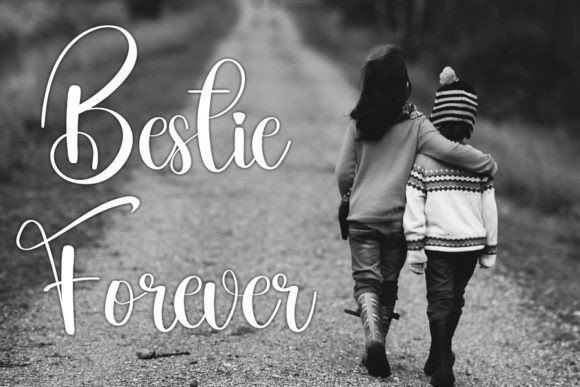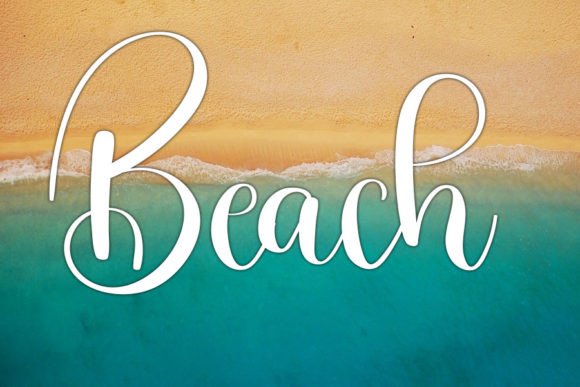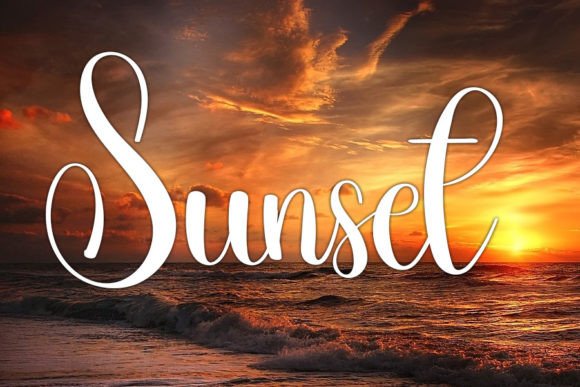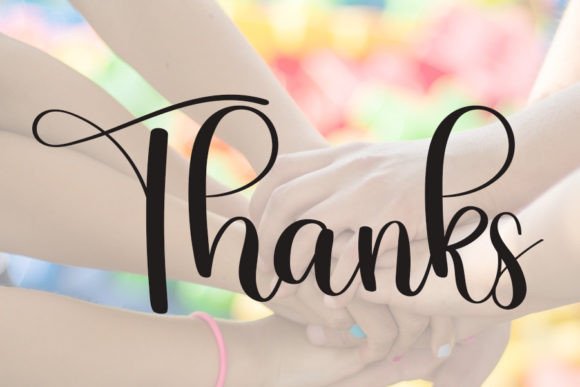
Discover the Secret to Making Connections with Friends Font
Do you remember that moment when you stumbled upon the perfect font for your project and everything just clicked? It’s like finding a long-lost friend who understands your design language. For designers, this moment is priceless, and it’s exactly what Friends Font is designed to deliver.
Friends Font is a stunning script font that’s perfect for creating eye-catching banners, cover logo mockups, wedding invitations, and more. With its fresh and beautiful design, this font is sure to make your business stand out from the crowd. By incorporating Friends Font into your designs, you’ll not only elevate your brand’s visual identity but also connect with your audience on a deeper level.
Key Features of Friends Font
- Unique Characteristics: The Friends Font features a distinctive, playful style with rounded edges and a friendly feel, making it perfect for casual and social designs.
- Font Styles: The font family includes multiple styles, including Regular, Bold, Italic, and Bold Italic, providing designers with a range of options for creative expression.
Friends Font Review
As a designer, I have had the chance to work with various fonts, but “Friends Font” is one that has left me with mixed feelings. On the one hand, here are some things that work well:
- ✨ Unique aesthetic: The font has a distinctive, playful vibe that can add a touch of personality to designs. It’s perfect for projects that require a lighthearted tone.
- ✨ Friendly feel: The name says it all – the font does have a friendly, approachable feel to it. It’s great for branding and identity projects where you want to convey a sense of approachability.
- ✨ Customization options: The font comes with a range of customization options, making it easy to adjust the look and feel to suit your design needs.
However, there are also some limitations:
- ⚠️ Limited legibility: At smaller font sizes, the font can become quite difficult to read. This can be a problem for projects where readability is a top priority.
- ⚠️ Limited versatility: While the font is great for lighthearted projects, it may not be the best choice for more formal or professional designs.
Overall, I would say that “Friends Font” is a solid choice for designers who want to add a playful touch to their projects. However, it may not be the best fit for every design scenario. With some careful consideration and adjustment, it can be a great addition to your design toolkit.
Tips for Getting the Most Out of “Friends Font”
For best results, pair “Friends Font” with bold or italic text to create visual interest.
Use it for titles, headings, or short paragraphs to create a friendly and approachable tone.
Experiment with different font sizes and colors to create a unique visual identity.
“Friends Font” is ideal for:
Social media graphics and posts
Blog posts and articles
Marketing materials and brochures
Personal projects and portfolios